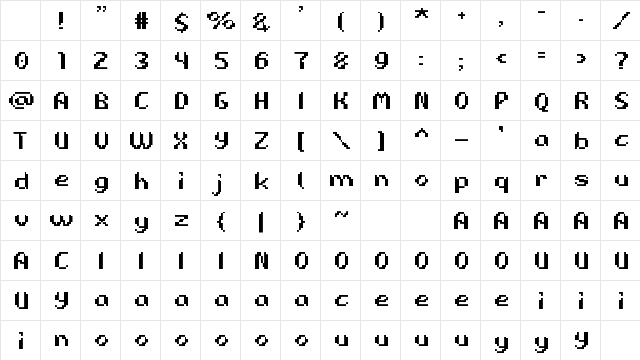
Complete Bit-23 Regular glyph index. Displaying only characters natively supported by Bit-23 Regular font.
Bit-23 is a composed and adaptable typeface that performs quietly and consistently across a wide range of design contexts.